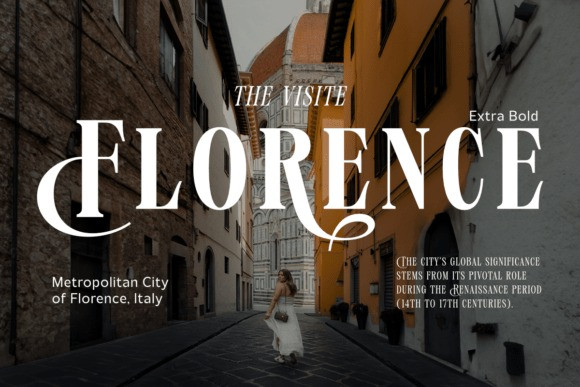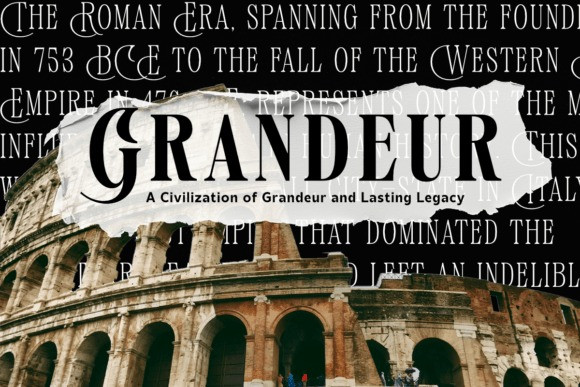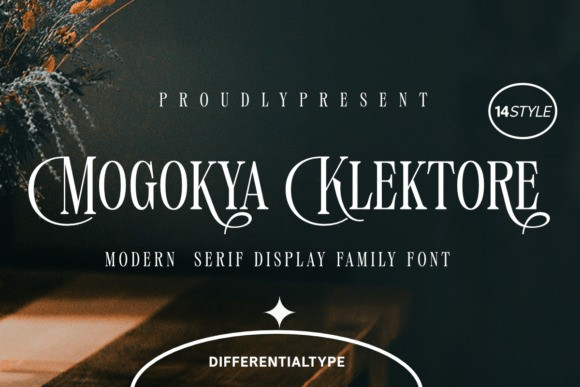
Mogokya Klektore Font Family, with a formidable 14 styles, inclusive of 7 weight variations and accompanying italics, the diversity of Mogokya Klektore is truly impressive.
The ingenious mix of uppercase and lowercase letters emanates a contemporary, relaxed aura that marries classic refinement with a modish charm effortlessly. Mogokya Klektore, with its robust and versatile personality, can adapt to an array of diverse professional design requirements. It is exceptionally suited for product branding, emblem creation, starring in headlines, enhancing book covers, and illuminating titles and posters. The font’s presence instantaneously imparts an opulent characteristic to your message.
With every use, Mogokya Klektore lends an exquisite, elitist touch, guaranteeing that your design creations leave a lasting, unique impression.
Mogokya Klektore font is also PUA-encoded, ensuring effortless access to all glyphs, swashes, and alternate characters to help you customize your creations with ease.